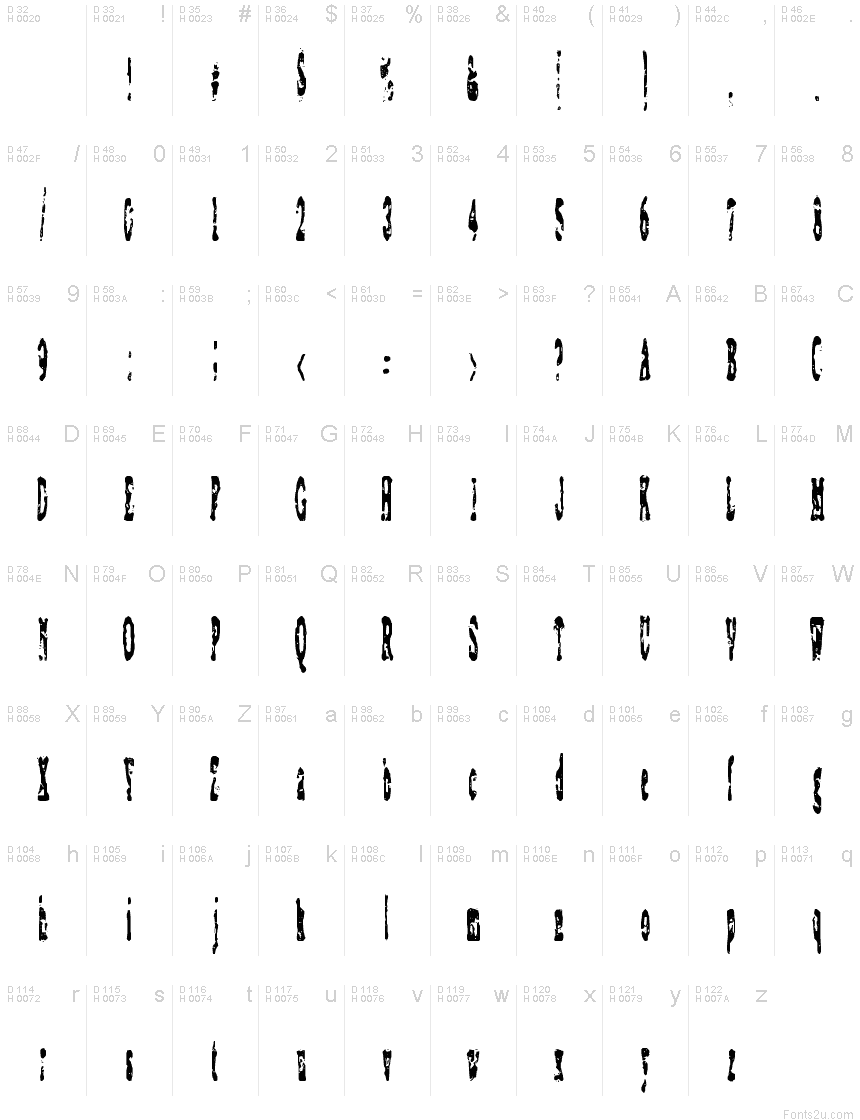
Coagulate
Coagulate font by Mr. Fisk is a free eroded display font with a smeared, inky edge that feels chewed up by time. The letters wobble, drip, and break apart just enough to feel feral, giving headlines that damp-basement, photocopied-flyer tension you can’t fake with a cleaner typeface.
Using Coagulate works beautifully for horror posters, punk and metal flyers, Halloween packaging, underground zines, game titles, album art, and gritty YouTube thumbnails. Keep Coagulate large so the rough texture can breathe, and pair this free font with a plain sans like Helvetica or Inter when you need readable supporting text.